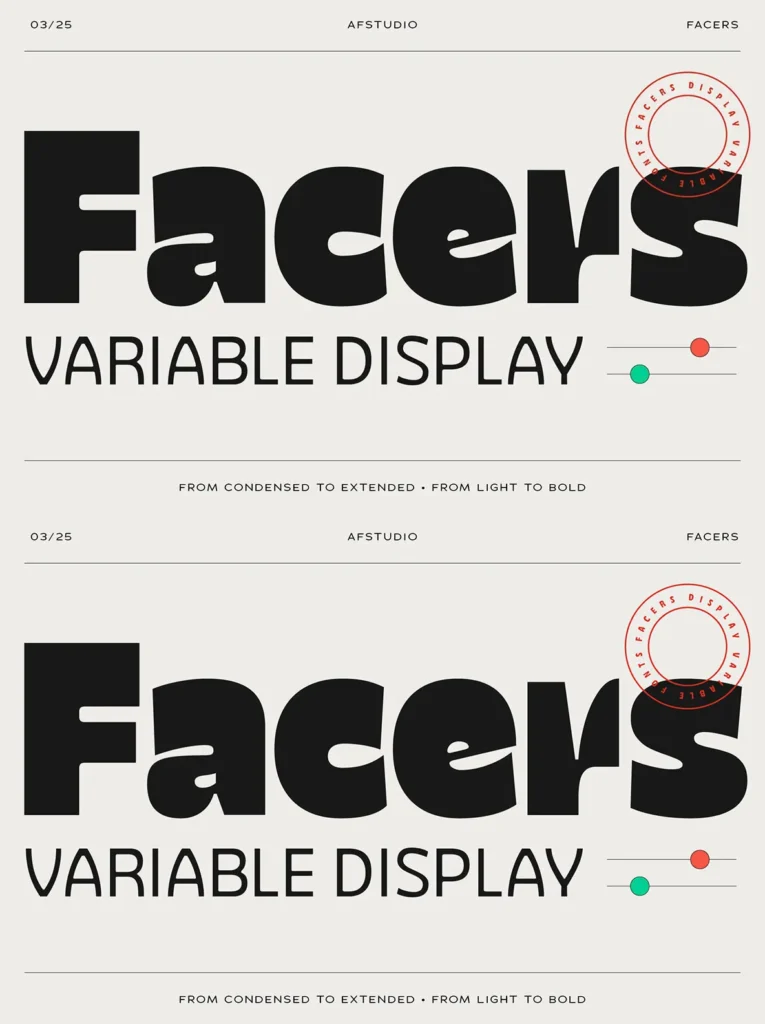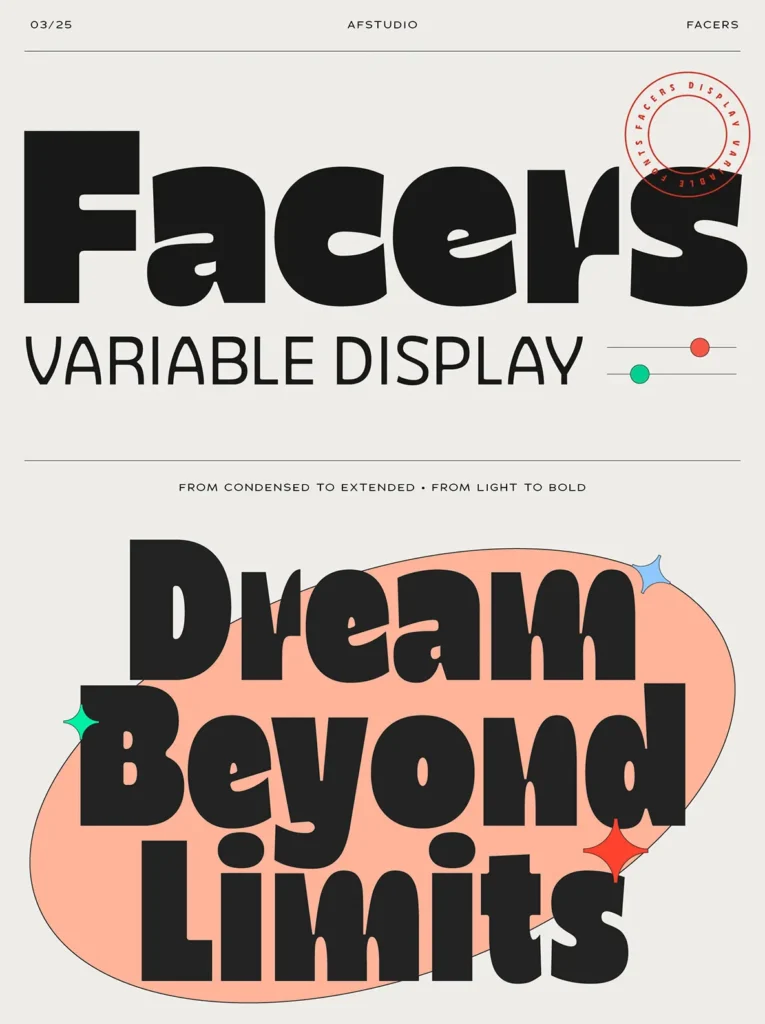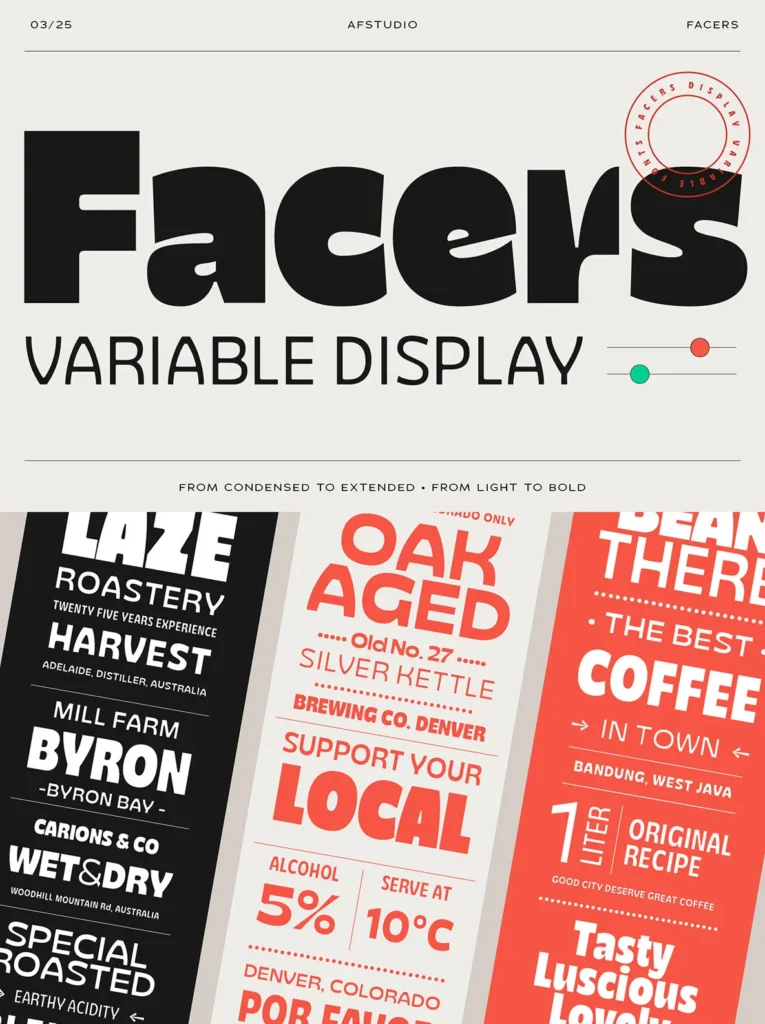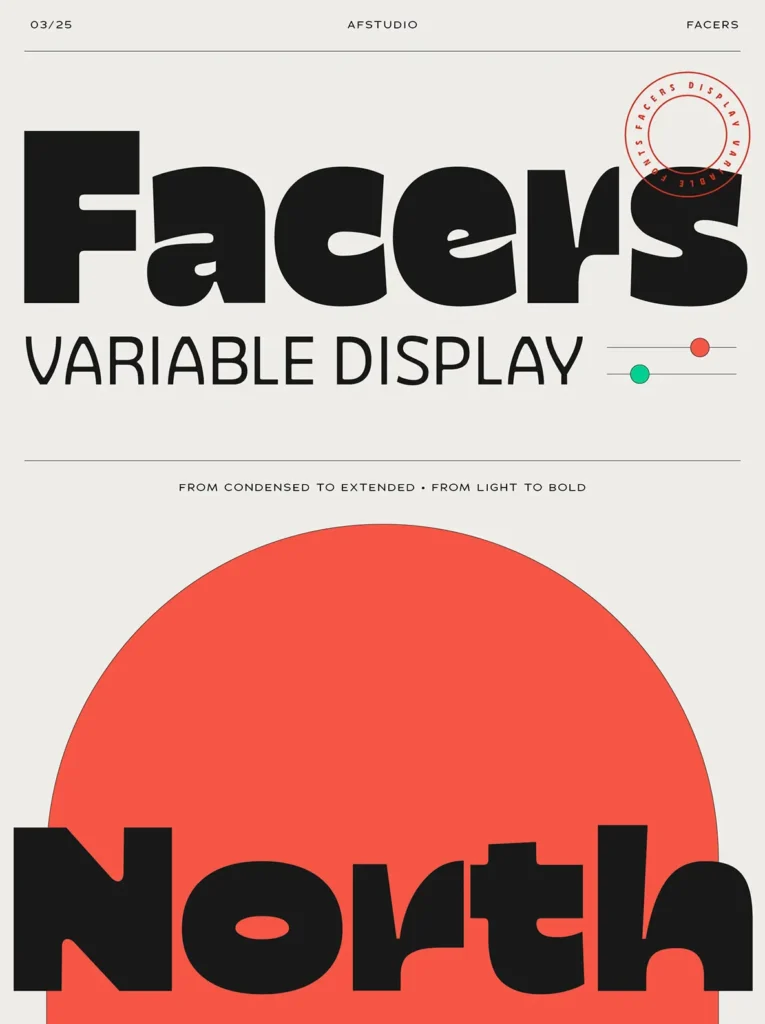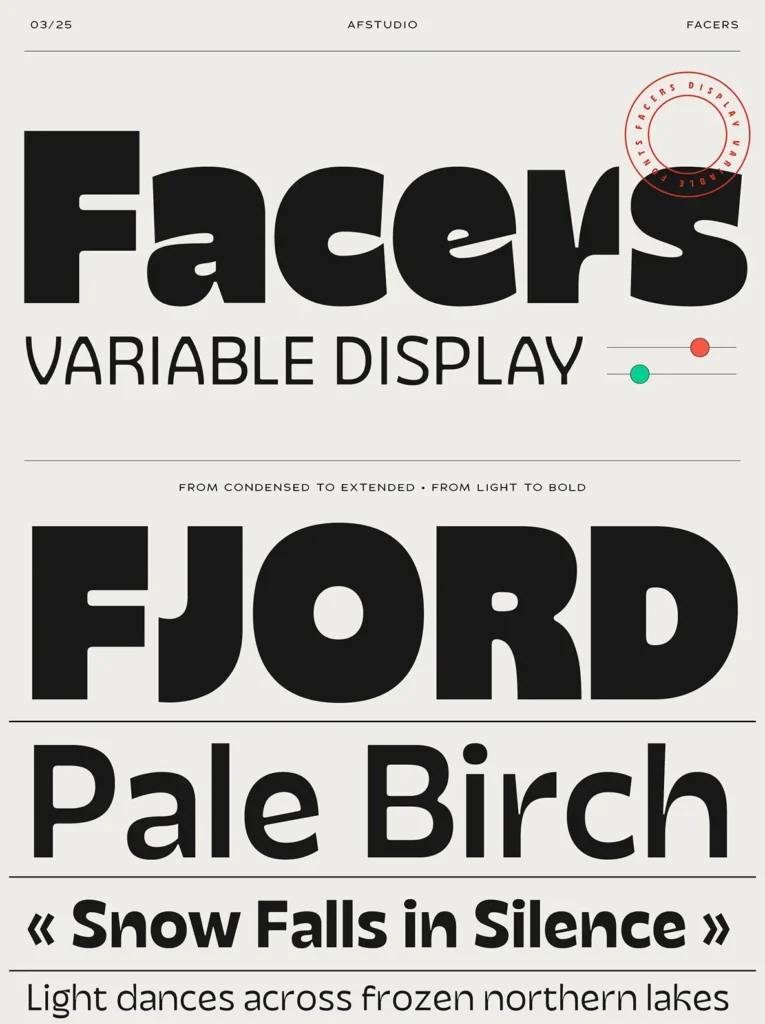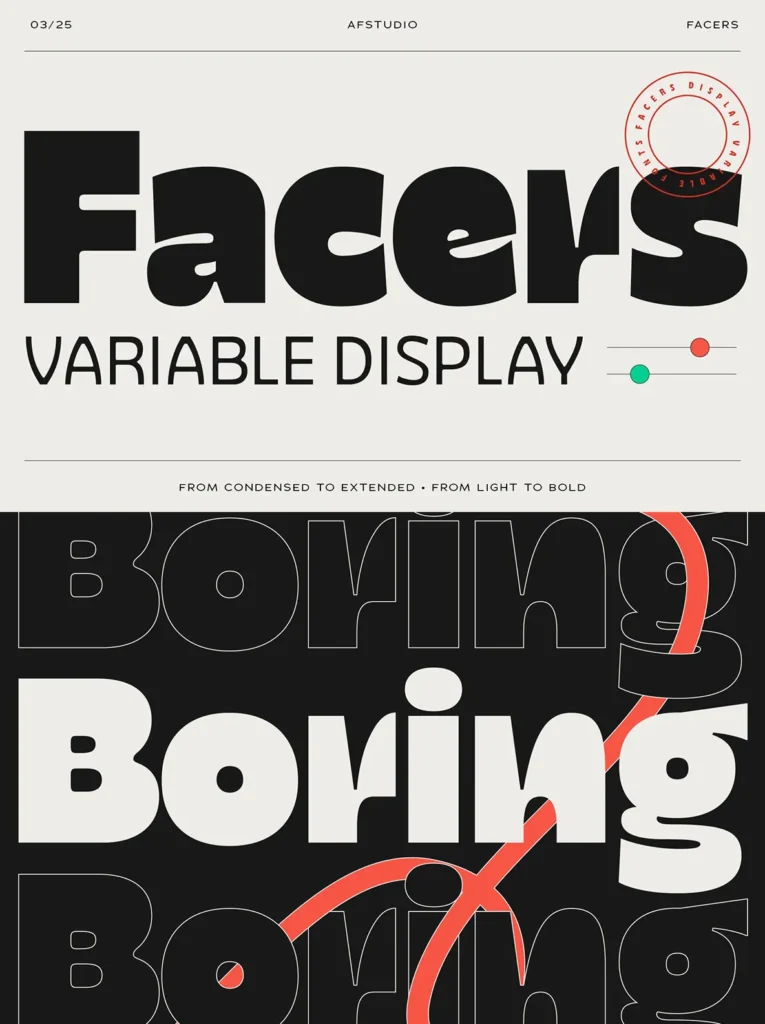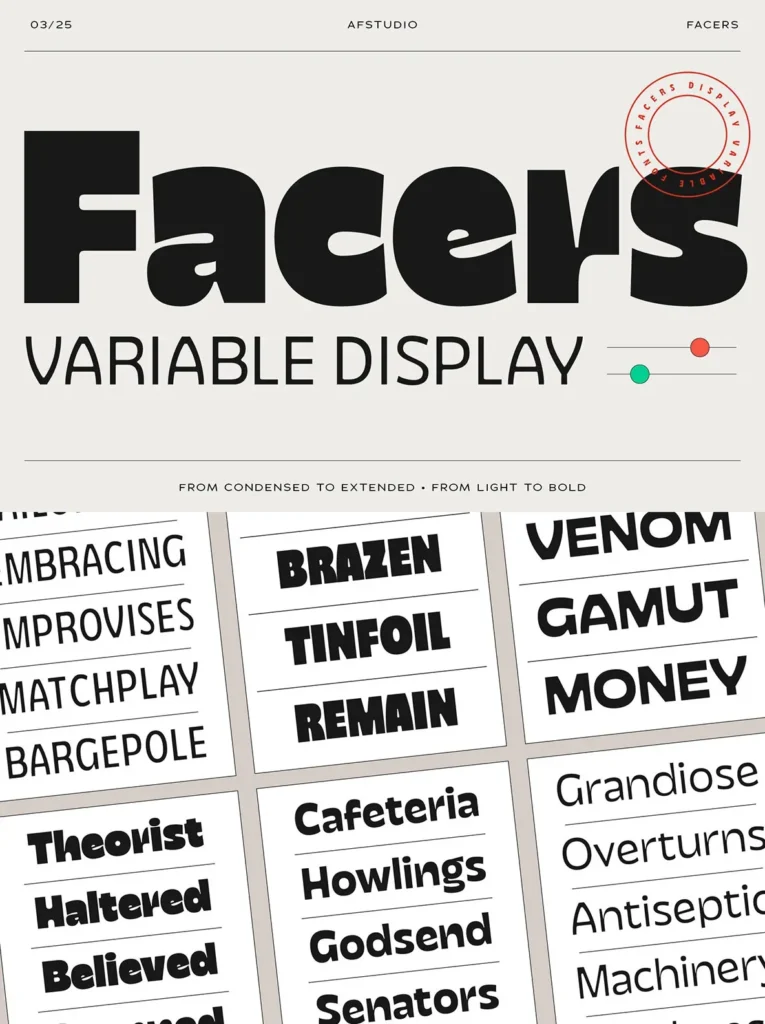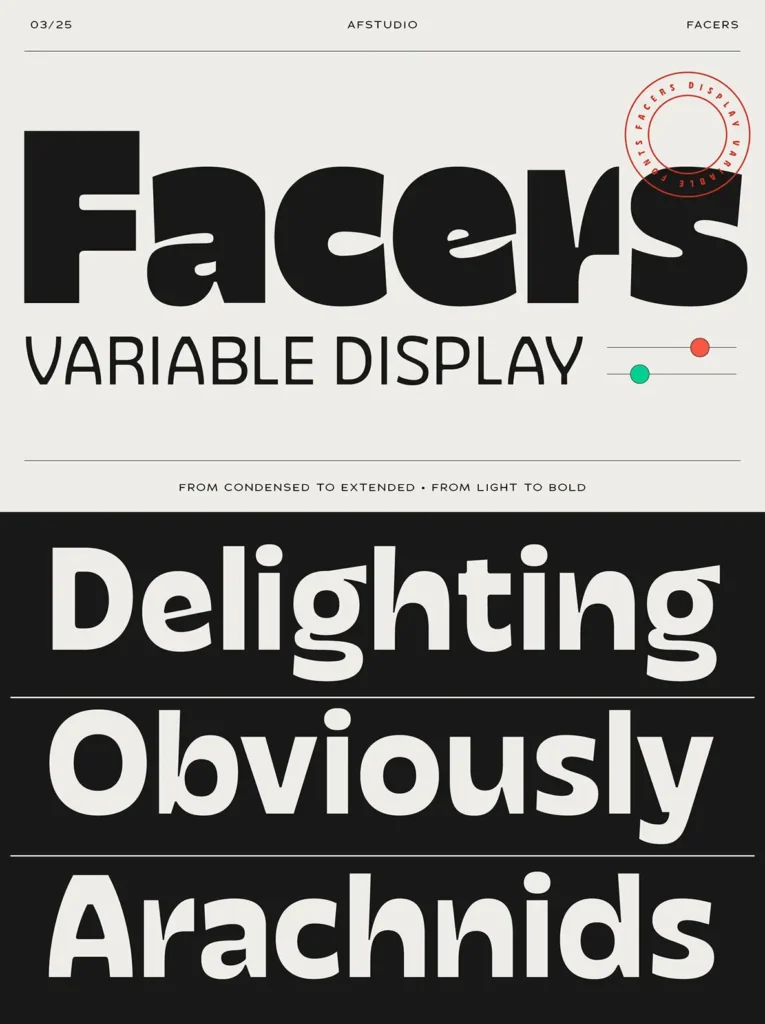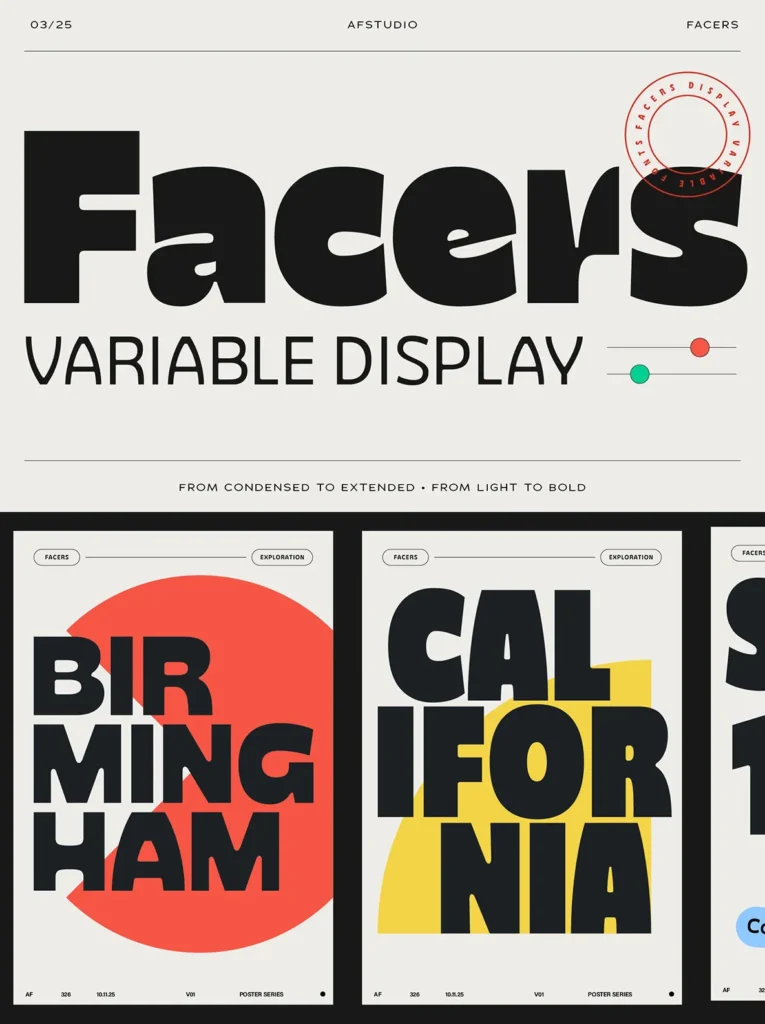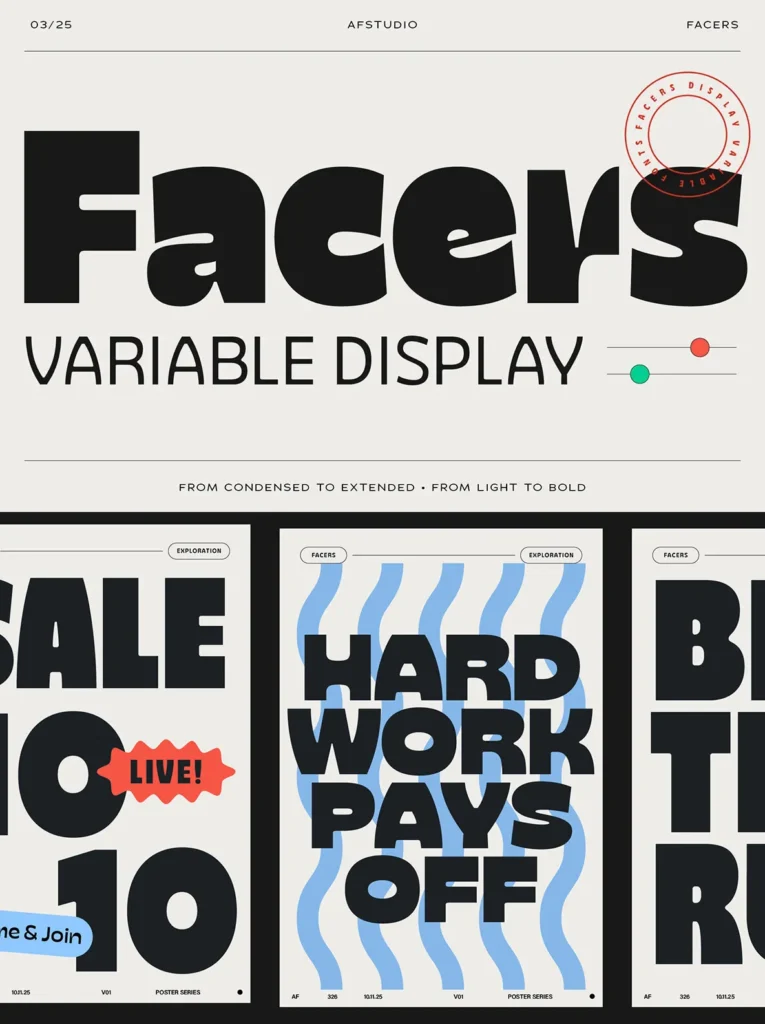
Facers: Bold display, built for impact
Designed by Adam Fathony, this powerful display typeface brings bold character to contemporary typography. It suits editorial layouts, promotional materials, and branding work where strong tone and clear presence matter. With variable features, it adapts smoothly across sizes and formats, making it a reliable choice for modern design systems.
A balance of retro charm and a modern aesthetic gives Facers a distinctive voice for attention-grabbing headlines and typographic posters. Use its range of widths and weights to set hierarchy, build contrast, and keep layouts cohesive across applications—including responsive design and animation. Stylish ligatures and alternates help you fine-tune details when the typographic finish needs extra care.
Features:
25 styles ranging from Light Extended to Bold Condensed, allowing for versatile design options.
Fully variable capabilities for customizing weight and width, perfect for responsive design and animations.
Ideal for attention-grabbing headlines and typographic posters.
Merges retro charm with a modern aesthetic.
Suitable for a range of industries, including lifestyle, fashion, tech, and more.
Includes stylish ligatures and alternates to enhance your typography.
Usage Includes:
Bold editorial layouts
Social media and promotional graphics
Product packaging
Music and event posters
Creating trendy branding systems
Motion graphics and animations
Facers is poised to be the cornerstone of your design endeavors, offering flexibility and a fresh, dynamic style.